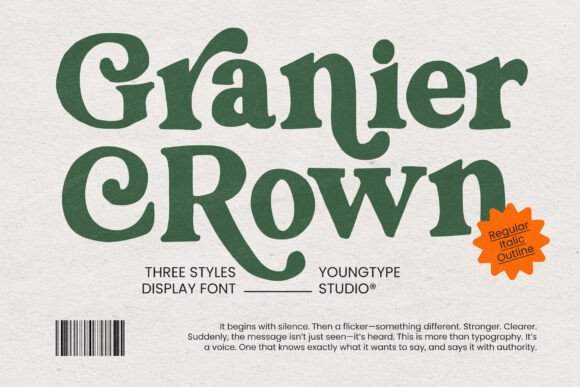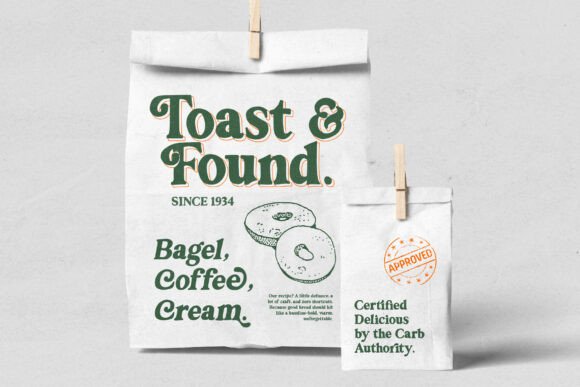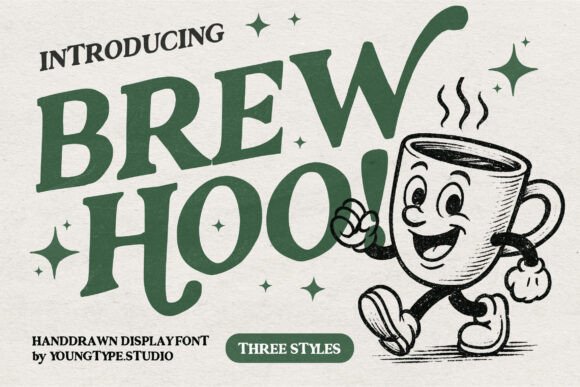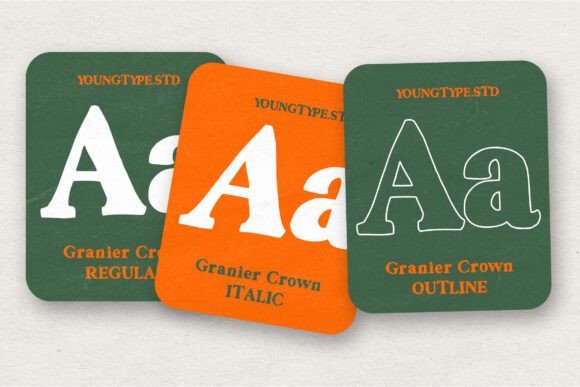
Granier Crown Font
About the Granier Crown Font
Welcome to the world of Granier Crown Font, a typeface that will inspire your next great project. Granier Crown is a bold and expressive display font with a vintage flair and modern adaptability. Featuring three versatile styles—Regular, Italic, and Outline—this typeface is perfect for branding, headlines, logos, and editorial designs that demand a distinctive voice. Its curvy, organic forms balance playfulness with sophistication, making it an ideal choice for packaging, posters, or any creative project that needs to stand out.
Granier Crown excels in headlines, logos, and short, impactful text settings. Its vintage flair lends itself well to projects with a retro or nostalgic aesthetic, while its modern adaptability ensures it remains current. Avoid using it for large blocks of body text or UI elements; its bold strokes and decorative elements compromise readability in smaller sizes or continuous use.
This font’s personality is confident and playful yet sophisticated. Brands seeking a vintage-inspired yet contemporary image, such as artisanal food products, boutique clothing lines, or entertainment companies targeting a younger demographic, would find it highly effective.
Pairing Granier Crown with a clean sans-serif like Montserrat for body text provides excellent contrast and readability. For a more luxurious feel, consider pairing it with a delicate serif such as Didot or a graceful script font like Great Vibes, depending on the desired level of formality.
Granier Crown Font Usage Examples
Granier Crown Font Example